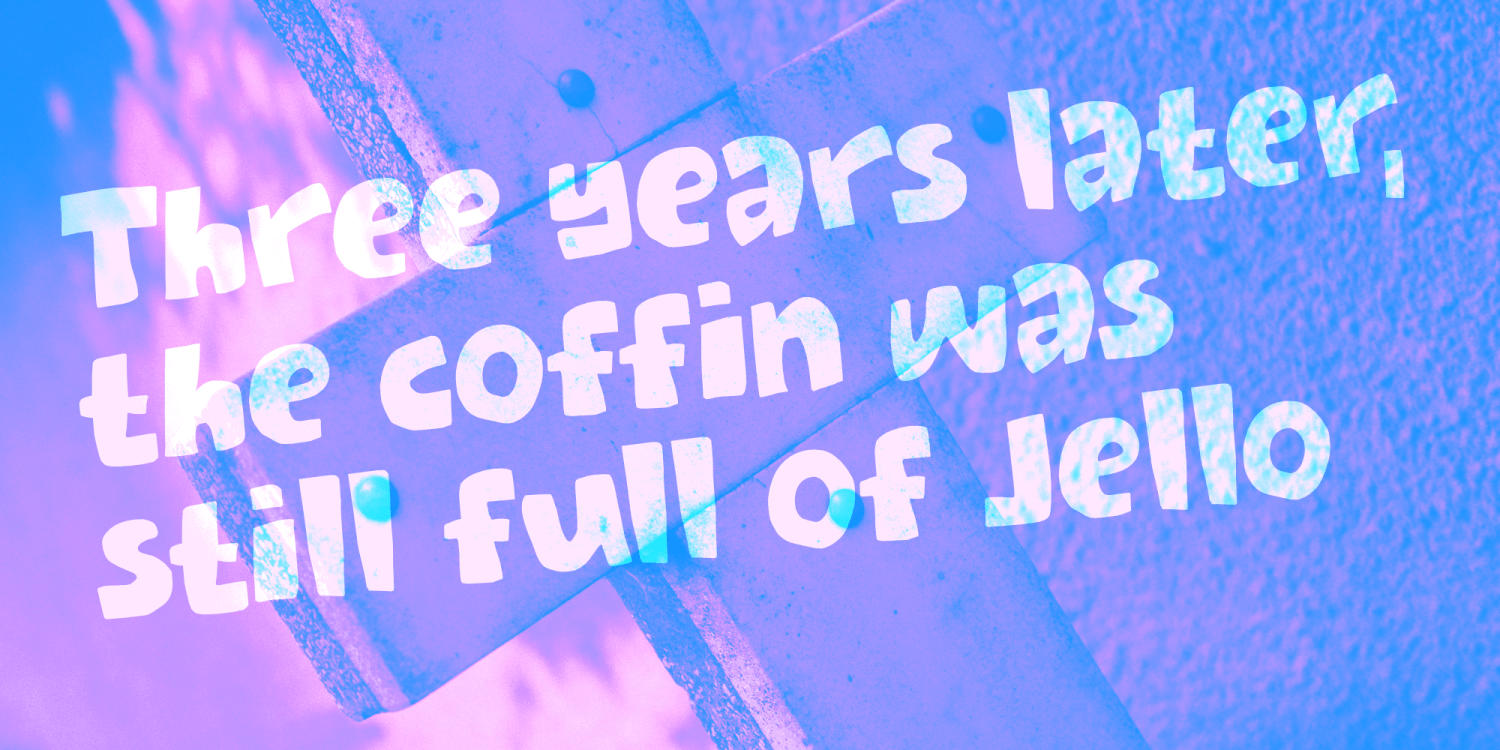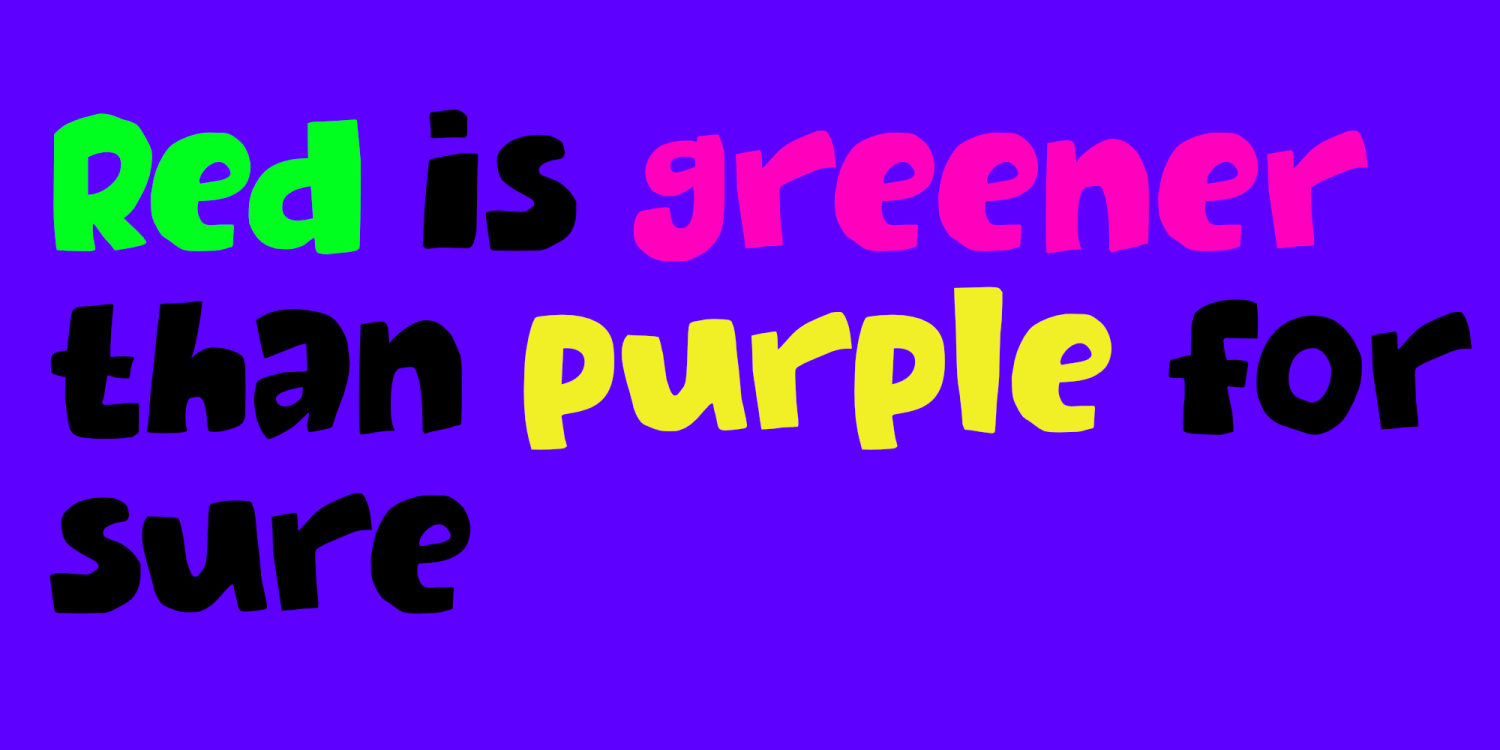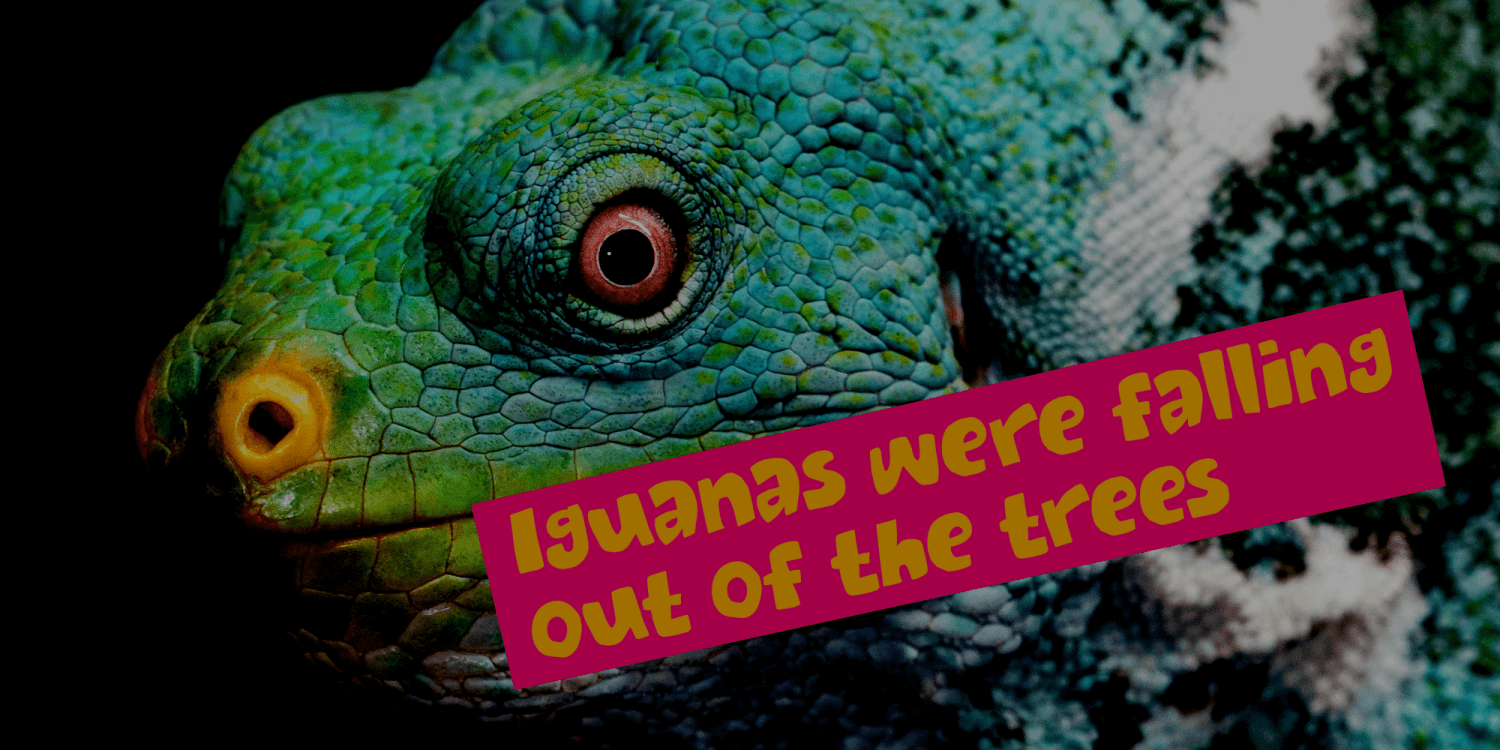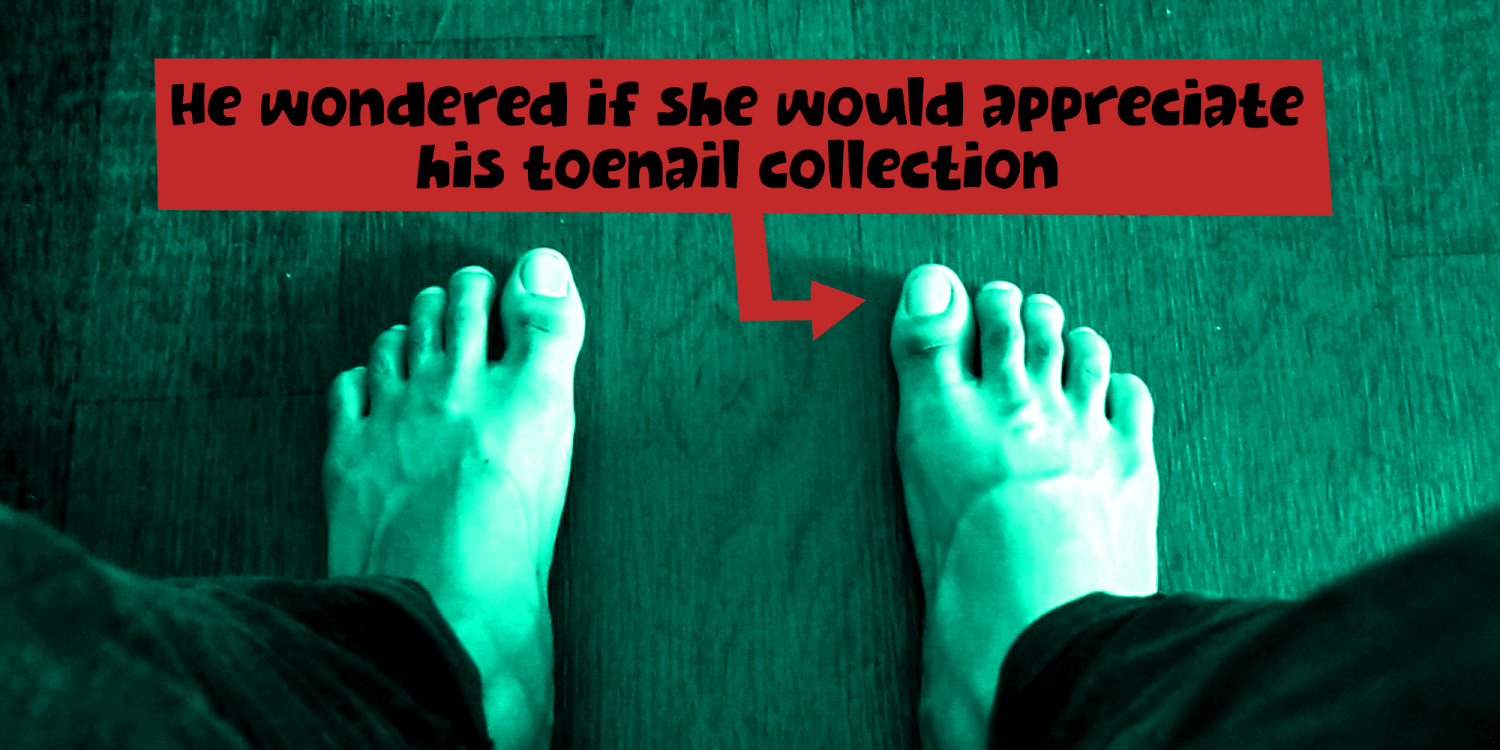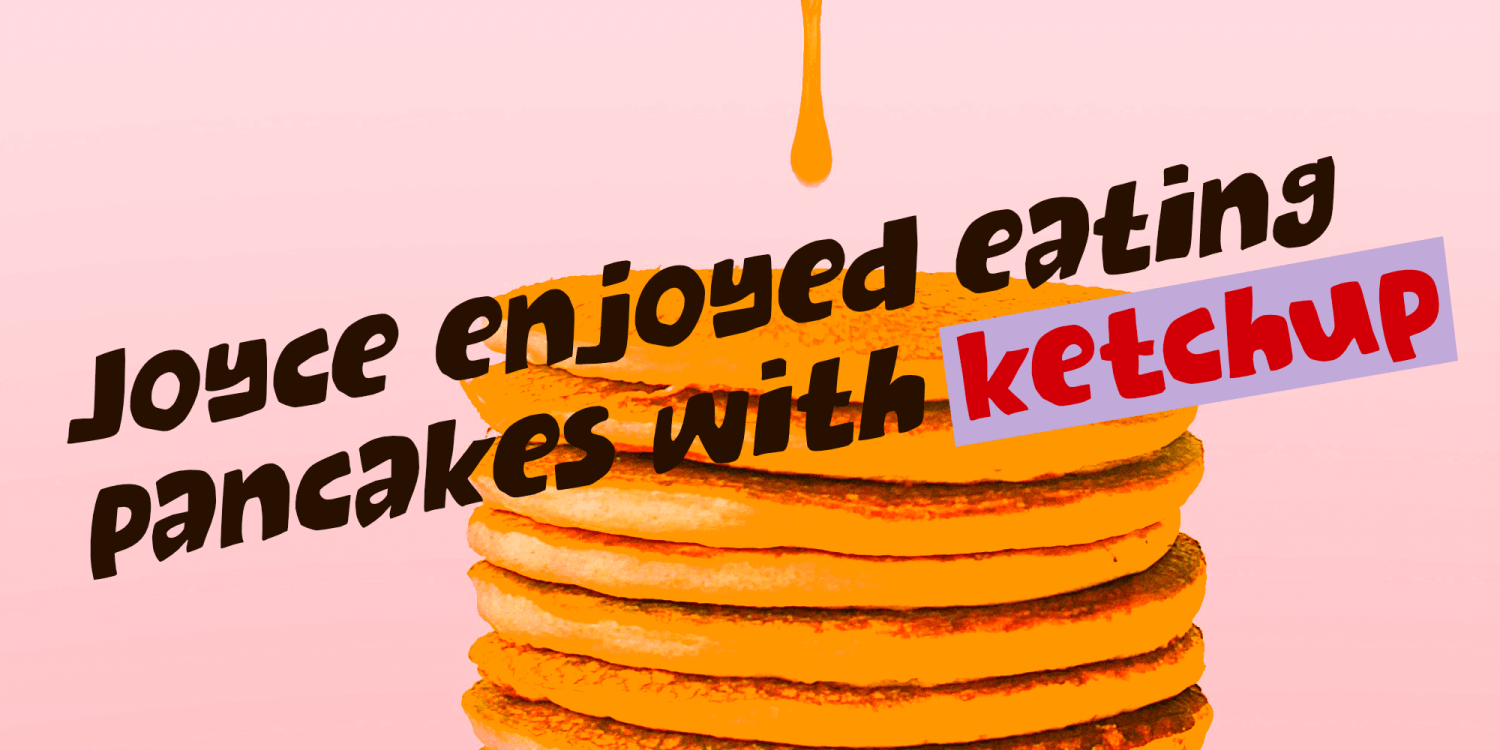
About Off Yer Trolley
I really like the UK and I quite enjoy the British slang. Off Yer Trolley is one such expression. It means ‘behaving in an unusual way or doing something silly’. It just popped in my head when I was looking for a name for this rather silly…